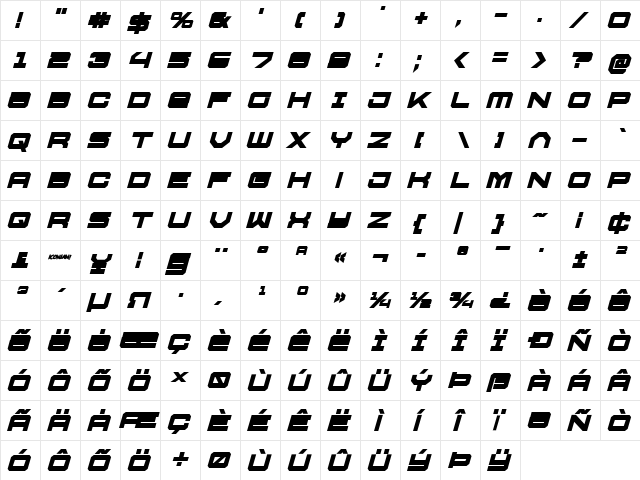
U.S.S. Dallas Bold Italic Font Preview
Design Context for U.S.S. Dallas Bold Italic Typeface
U.S.S. Dallas Bold Italic takes a measured approach to typography — its balanced proportions and neutral character make it a reliable workhorse for both digital and print work. Its italic angle brings a sense of urgency and motion to the letterforms. The heavy weight commands attention and anchors typographic hierarchies.
Pro Tip: Use U.S.S. Dallas Bold Italic for emphasis, pull quotes, and subheadings where its slanted energy can add rhythm to the layout.